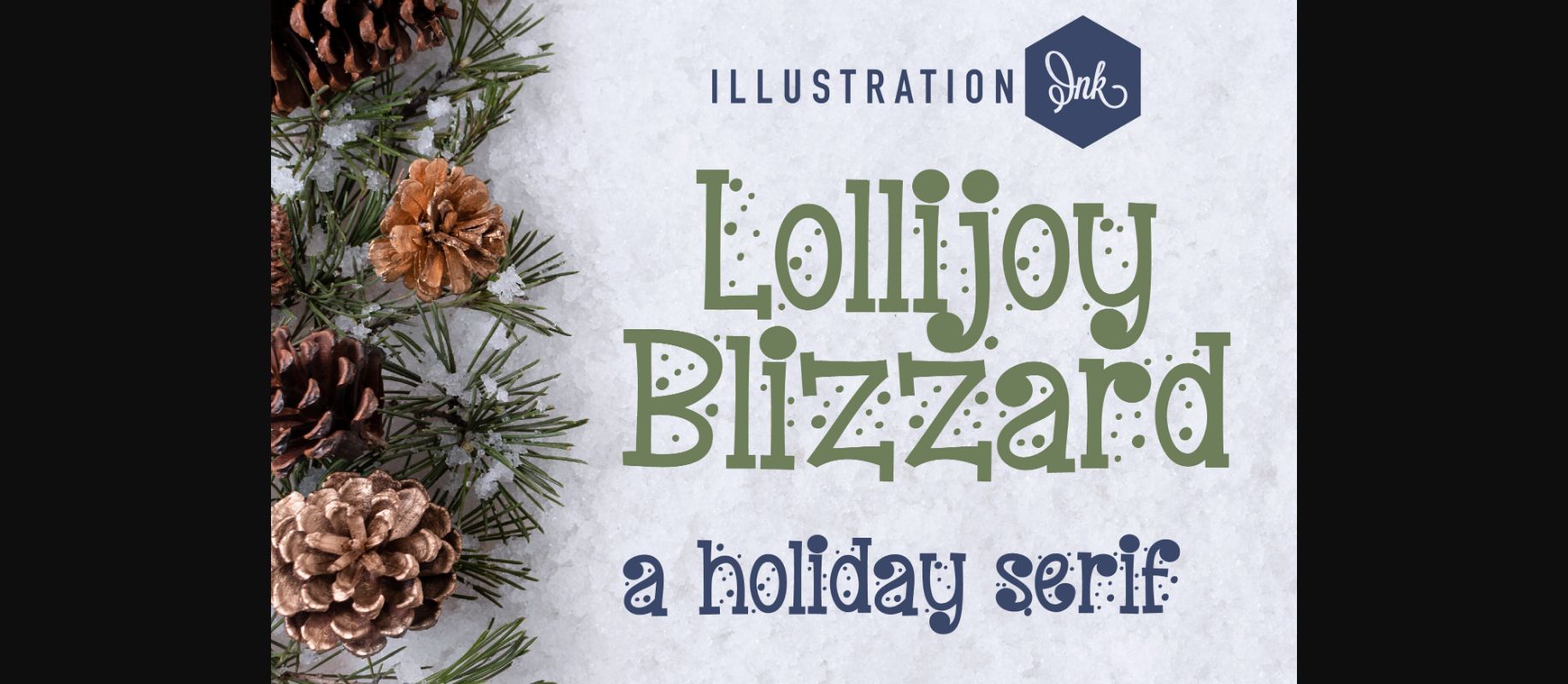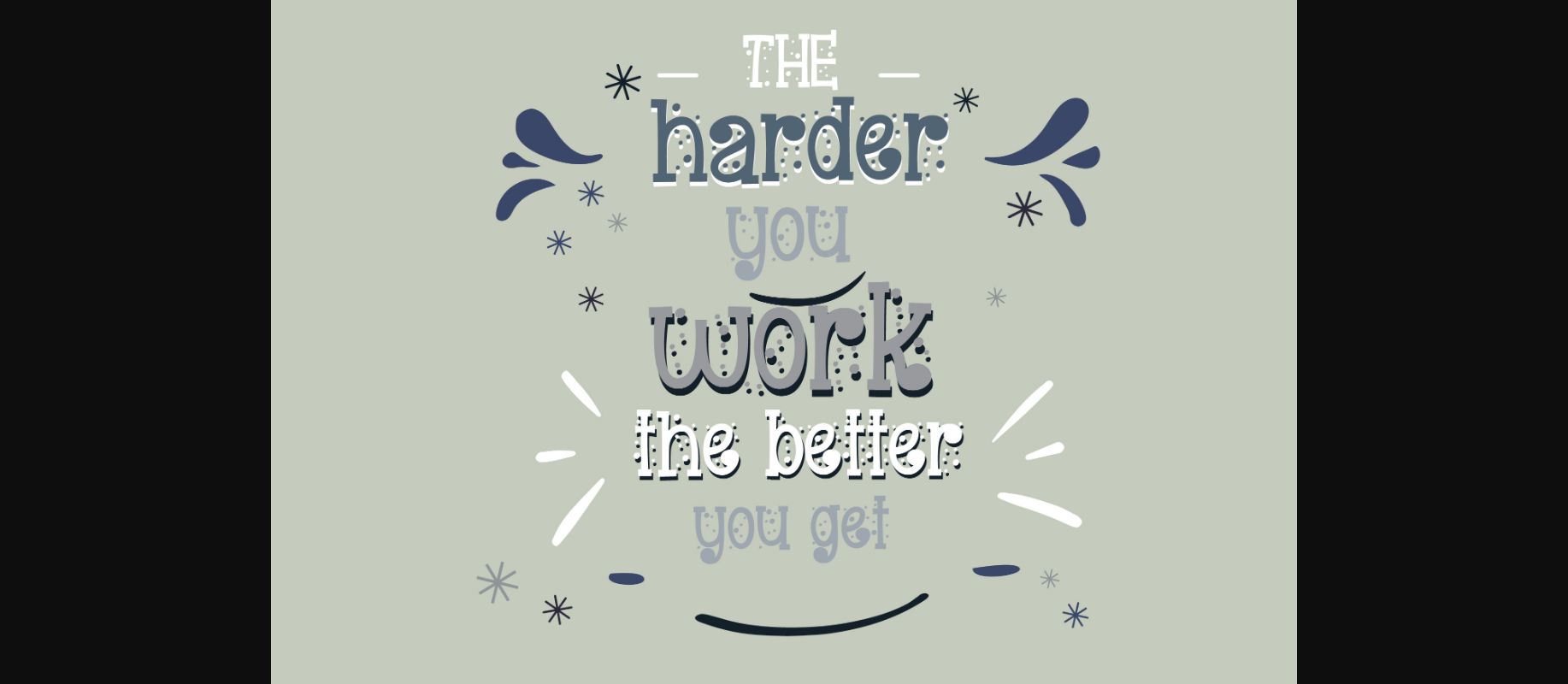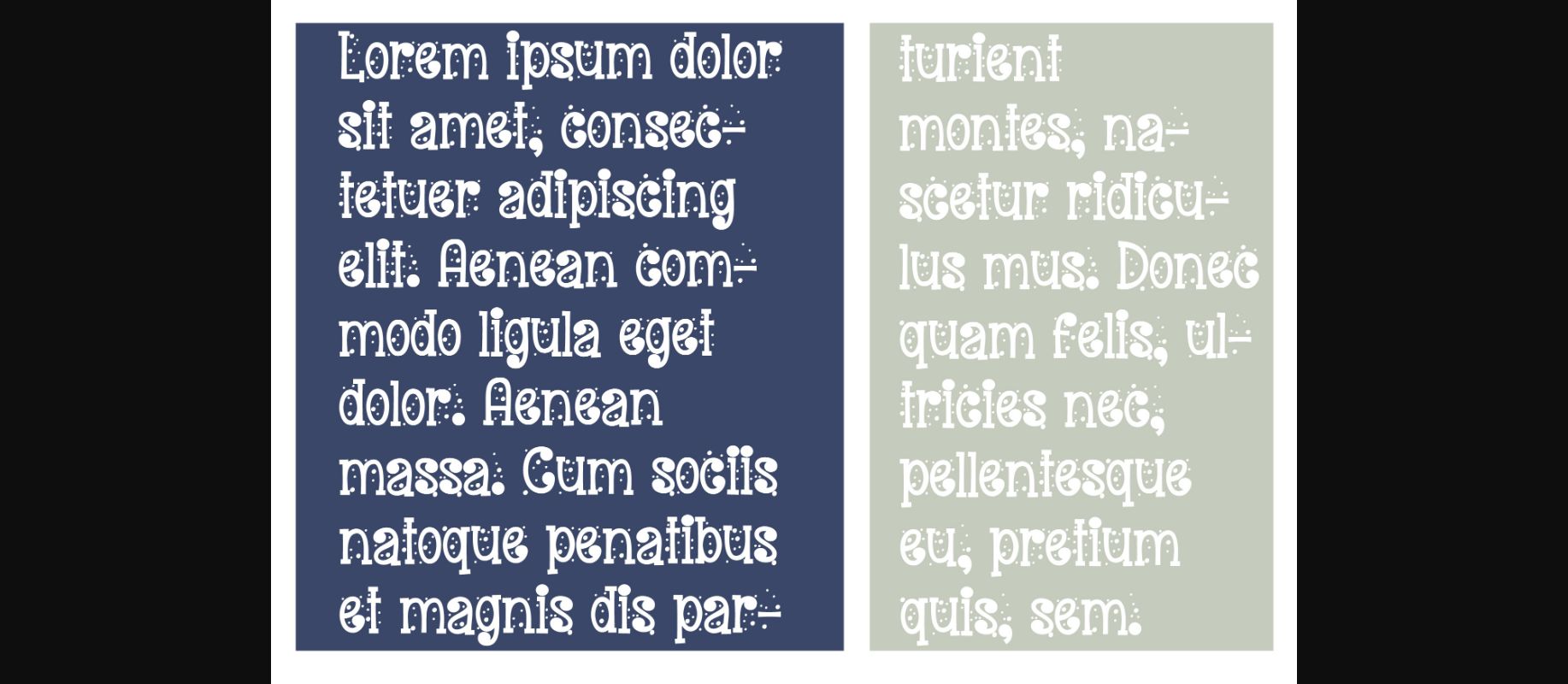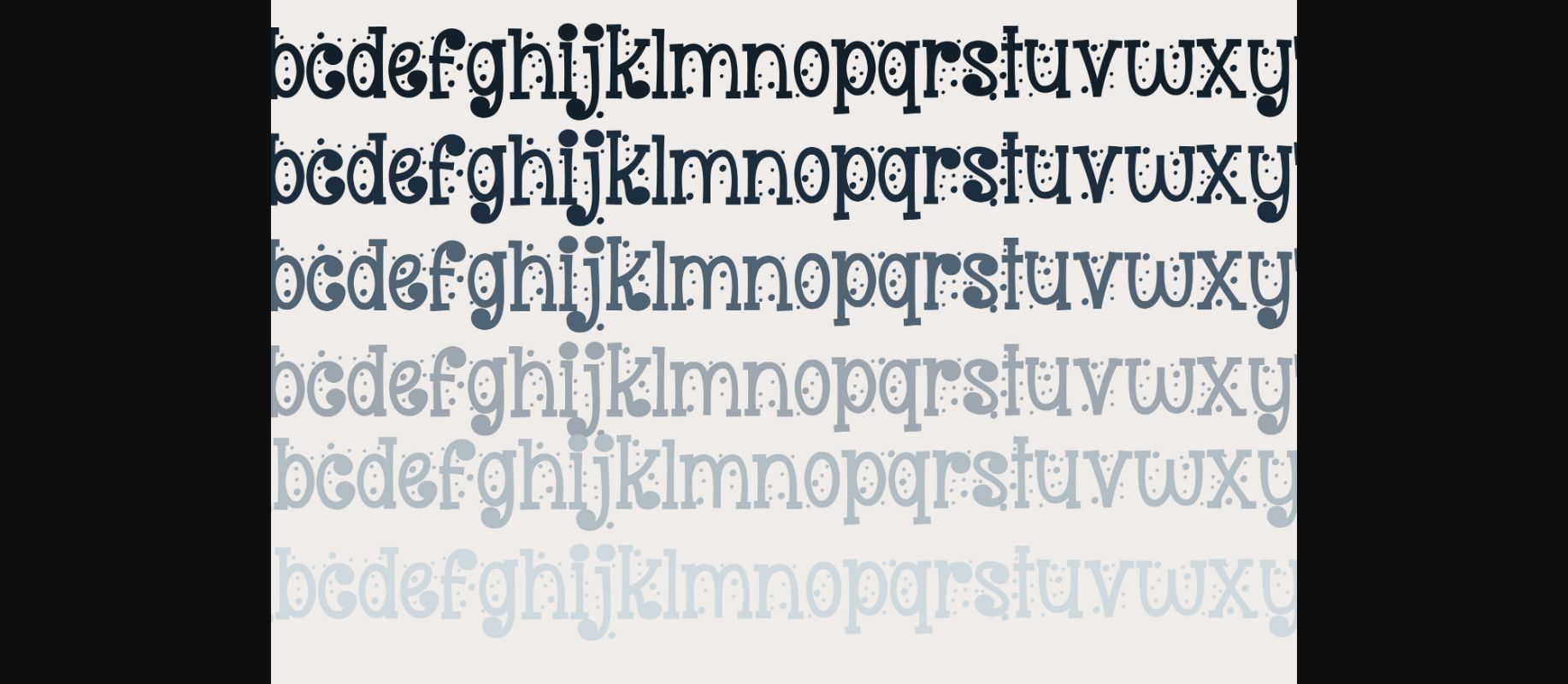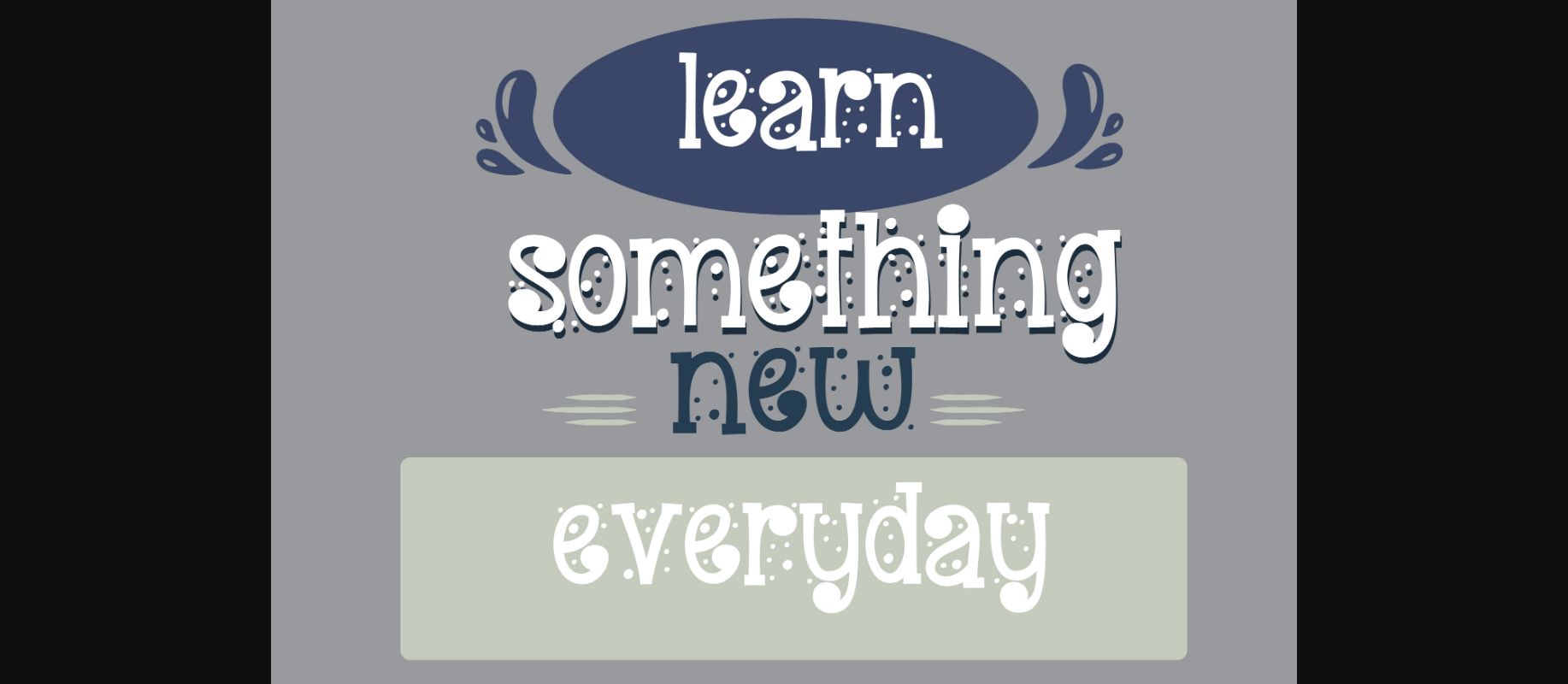
About Lollijoy Blizzard Font
This hand-crafted font features a hand-written serif with a blizzard storming all over.
A hand-crafted font is a font that is designed to look like it was written by hand. It is often used for invitations, greeting cards, and other items. Handwritten fonts can be either formal or informal, and they can be used for a variety of purposes.
Handwritten fonts can be a great way to add a casual touch to your designs. They can also be used to create a sense of nostalgia or whimsy. However, it is important to choose a handwritten font that is appropriate for the project you are working on. A formal handwritten font may not be appropriate for a casual invitation, while an informal handwritten font may not be appropriate for a corporate document.
A hand-crafted font is a font that is designed to look like it was written by hand. It is often used for invitations, greeting cards, and other items. Handwritten fonts can be either formal or informal, and they can be used for a variety of purposes.
Handwritten fonts can be a great way to add a casual touch to your designs. They can also be used to create a sense of nostalgia or whimsy. However, it is important to choose a handwritten font that is appropriate for the project you are working on. A formal handwritten font may not be appropriate for a casual invitation, while an informal handwritten font may not be appropriate for a corporate document.